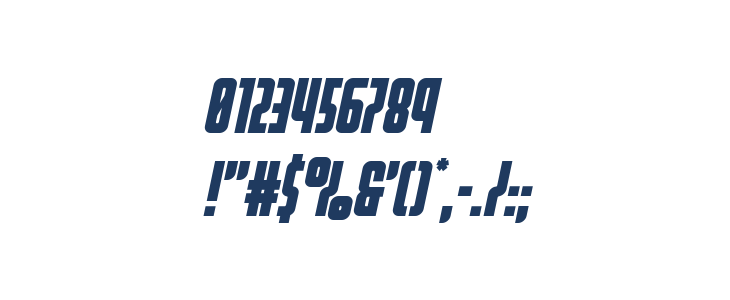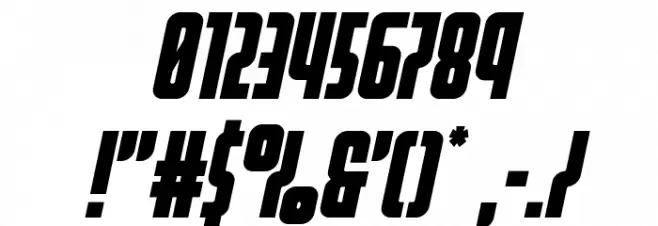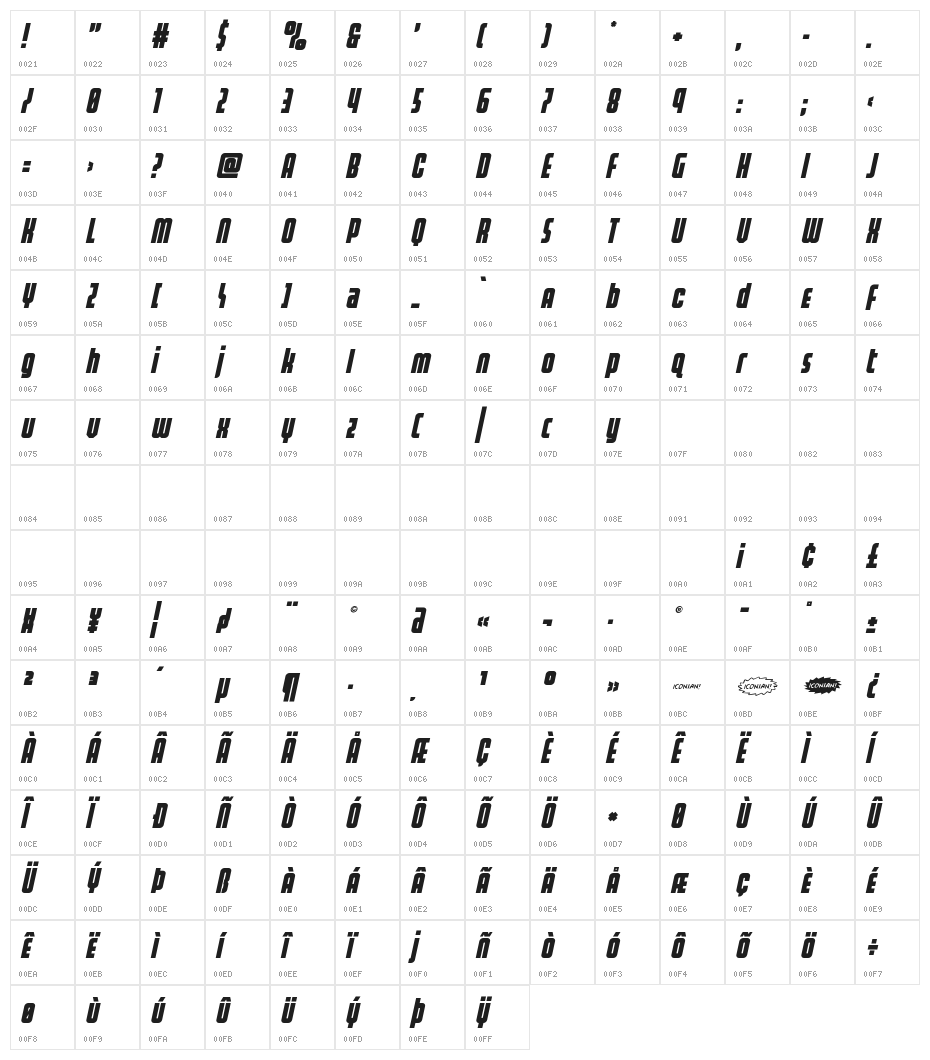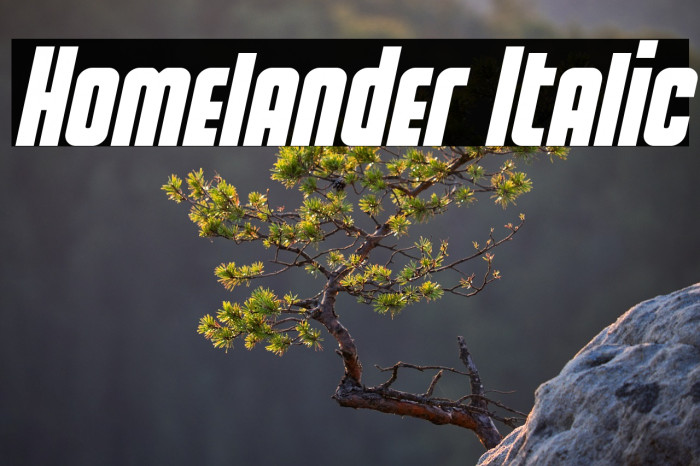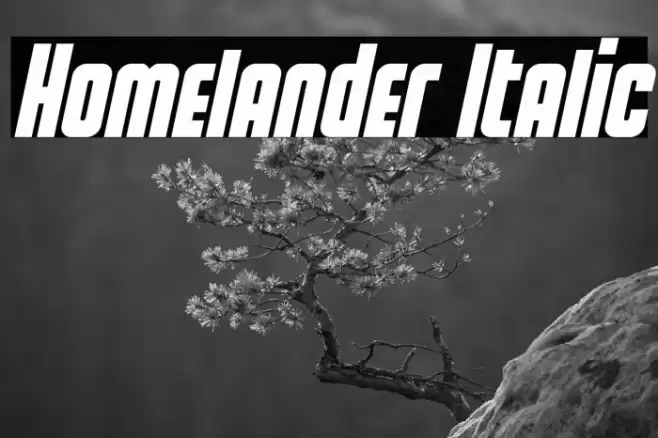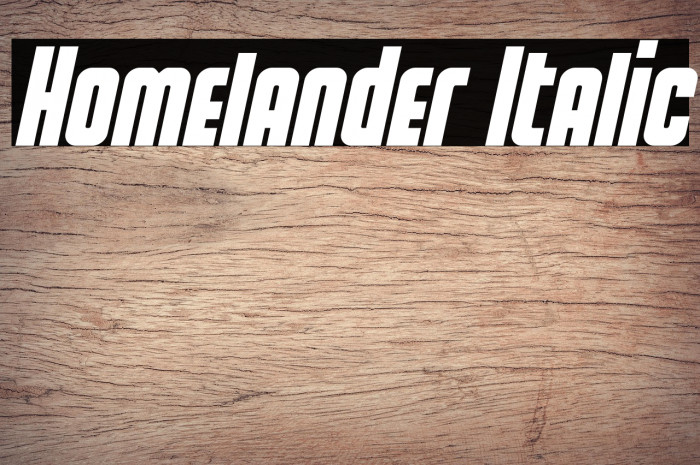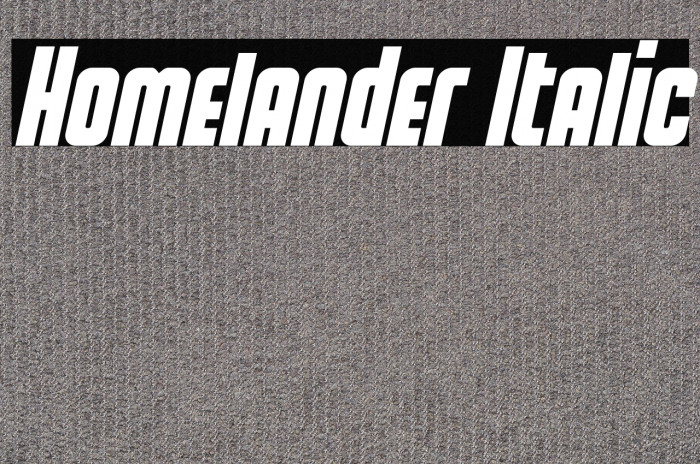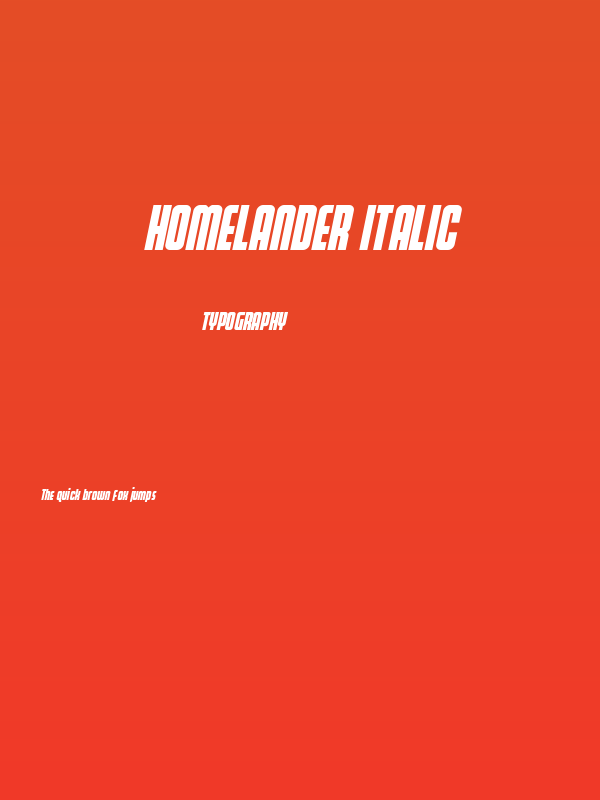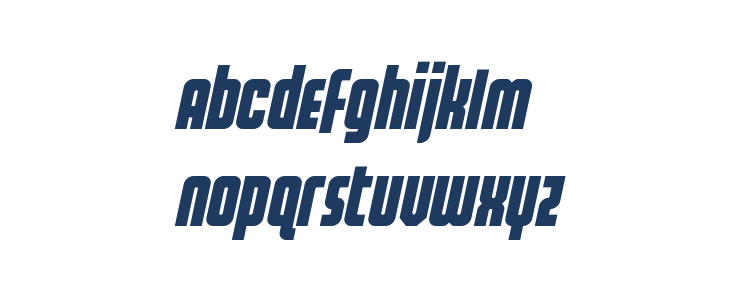
Homelander Italic Font
Homelander Italic Description
This font features a bold and dynamic style with a strong italic slant, giving it a sense of motion and urgency. The characters are thick and robust, with a slightly condensed width that enhances their impact. The uppercase and lowercase letters maintain a consistent weight, providing a cohesive look across the alphabet. The numbers and special characters are designed to match the boldness and slant of the letters, ensuring uniformity throughout. The overall design is modern and assertive, making it suitable for projects that require a strong visual presence.
| Proposed Projects | Ideal for sports branding, action movie posters, dynamic advertisements, and bold headlines. |